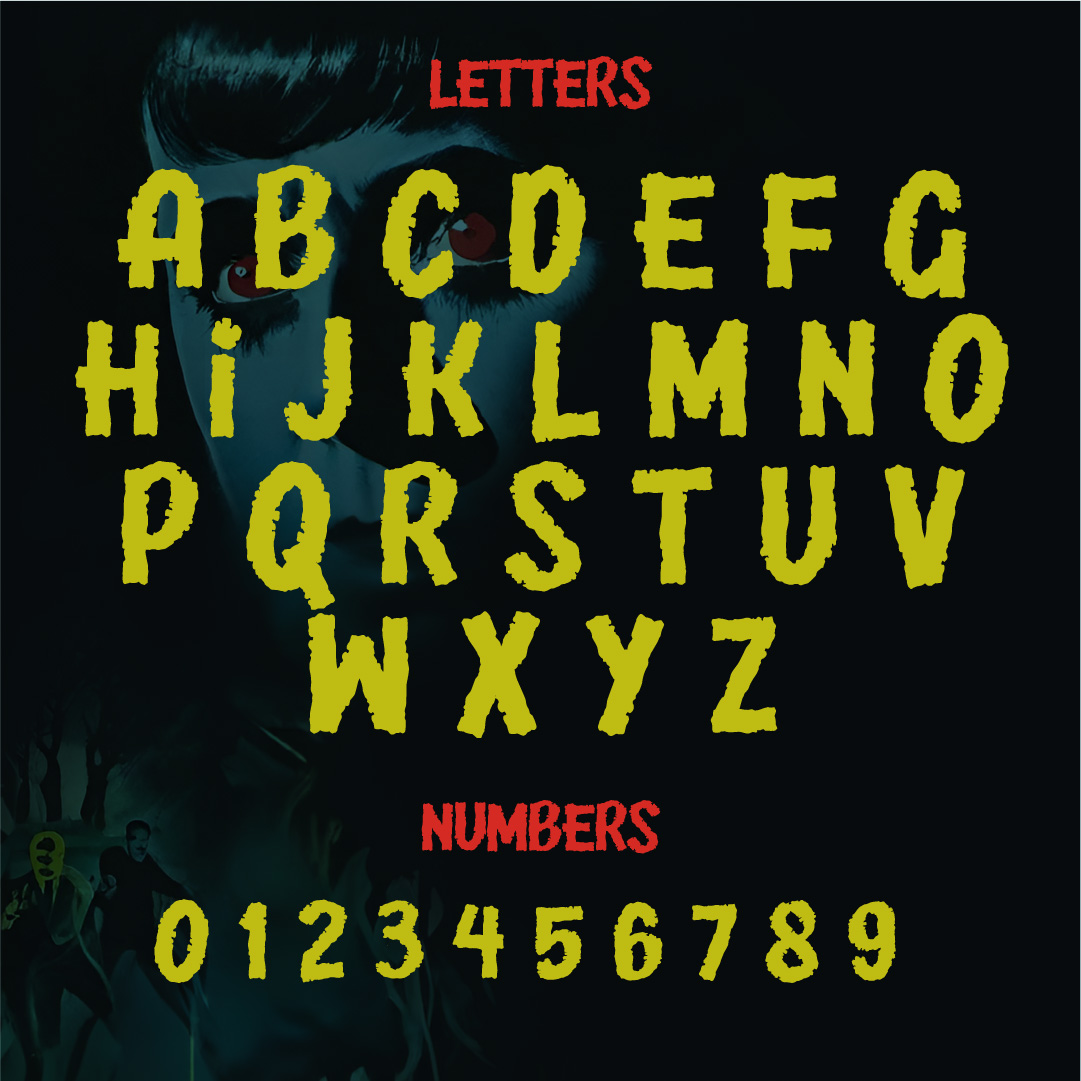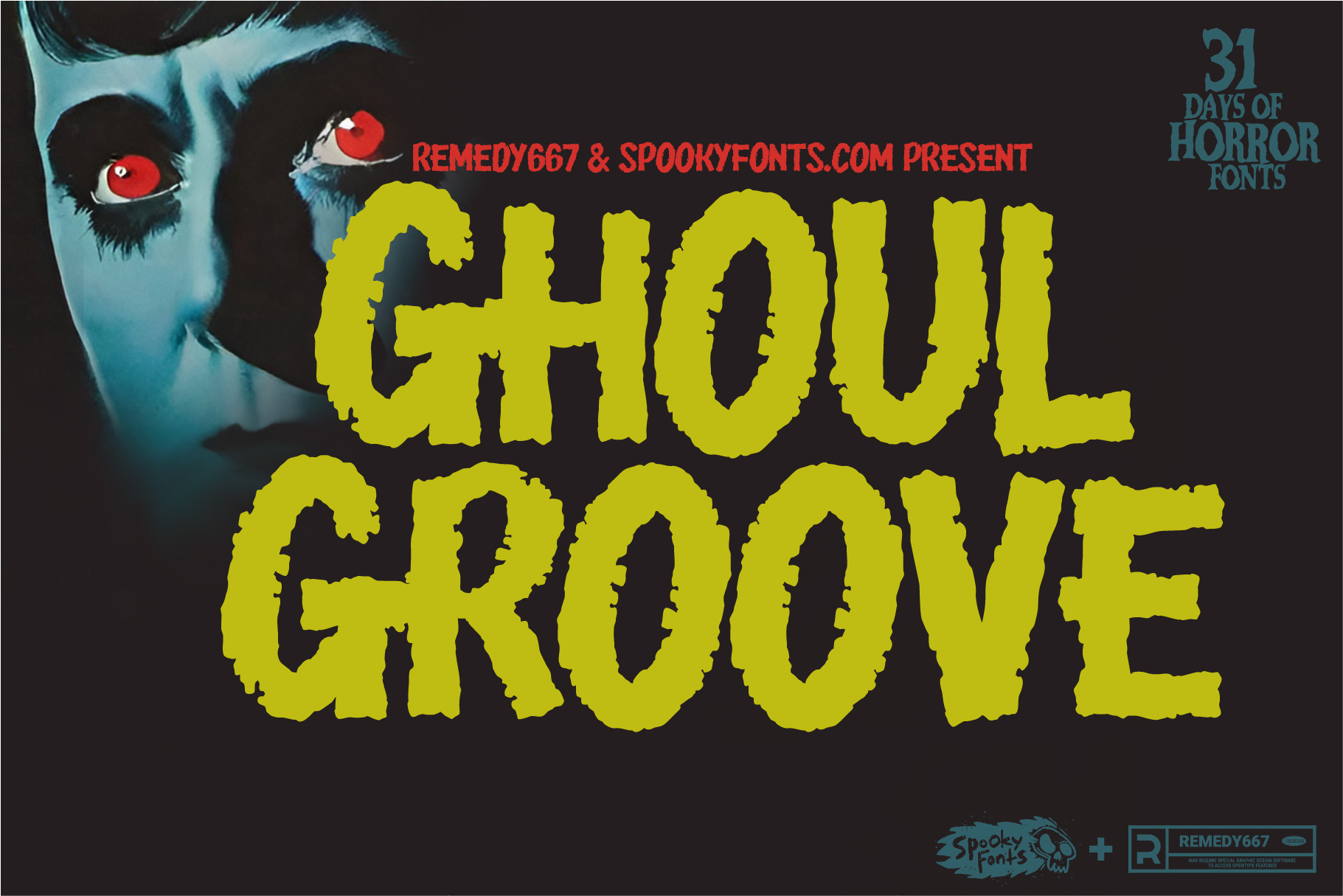
Ghoul Groove
Ghoul Groove: Gritty horror font for spine-chilling designs.
Are you ready to send shivers down your audience’s spines? Introducing Ghoul Groove, a gritty double feature flyer typeface that will make your designs scream with horror! This bone-chilling font is perfect for Halloween events, haunted house promotions, or any ghoulish gathering that needs an extra dose of terror. With its eerie curves and spooky lettering, Ghoul Groove will set the mood for a night of frightening fun.
Ghoul Groove brings forth a terrifying typography experience like no other. Its jagged edges and distressed appearance give each character an air of decay and decrepitude – as though they’ve been unearthed from the darkest depths of the underworld itself. Whether you’re designing posters for a horror movie marathon or crafting creepy invitations to a costume party, this font ensures that every word drips with dread.
But don’t let its spine-tingling looks fool you – Ghoul Groove remains highly readable even in dimly lit environments. Each letter is meticulously crafted to maintain legibility without sacrificing an ounce of fear factor. And with both uppercase and lowercase options available, you’ll have all the tools you need to create truly haunting designs that leave audiences quivering in their boots. Embrace the darkness and